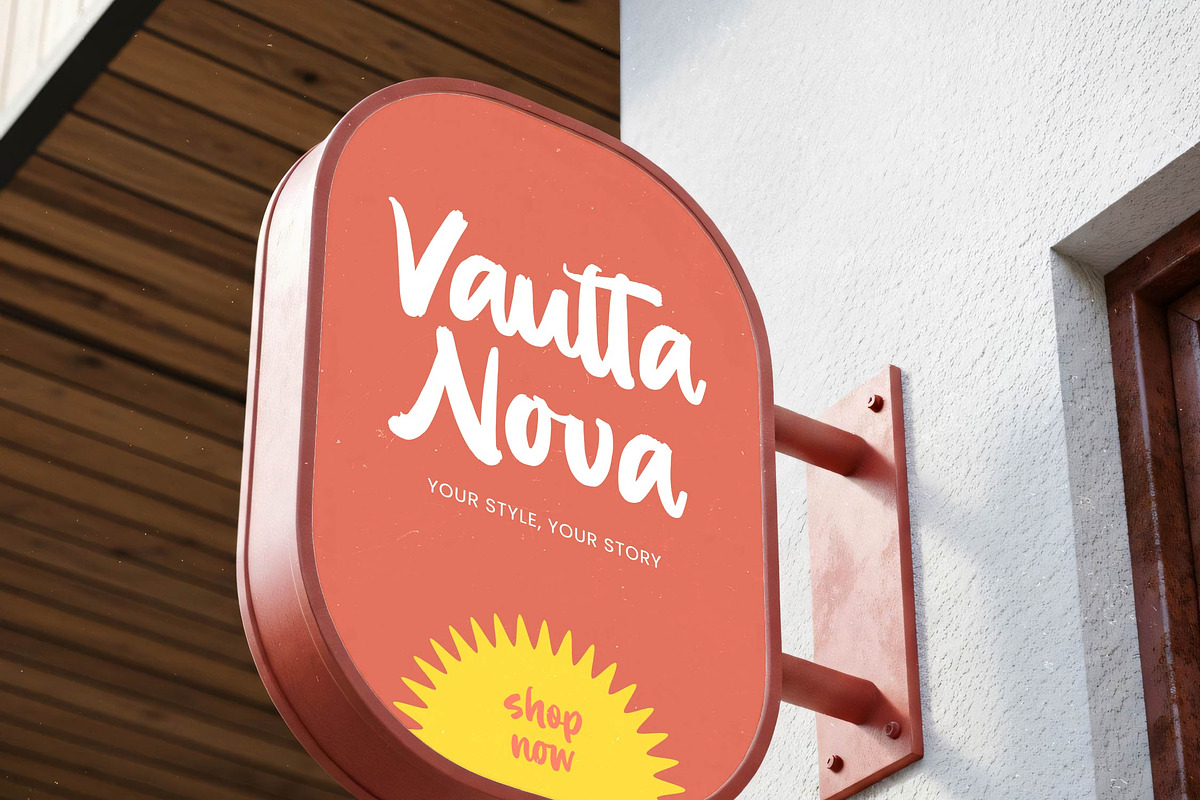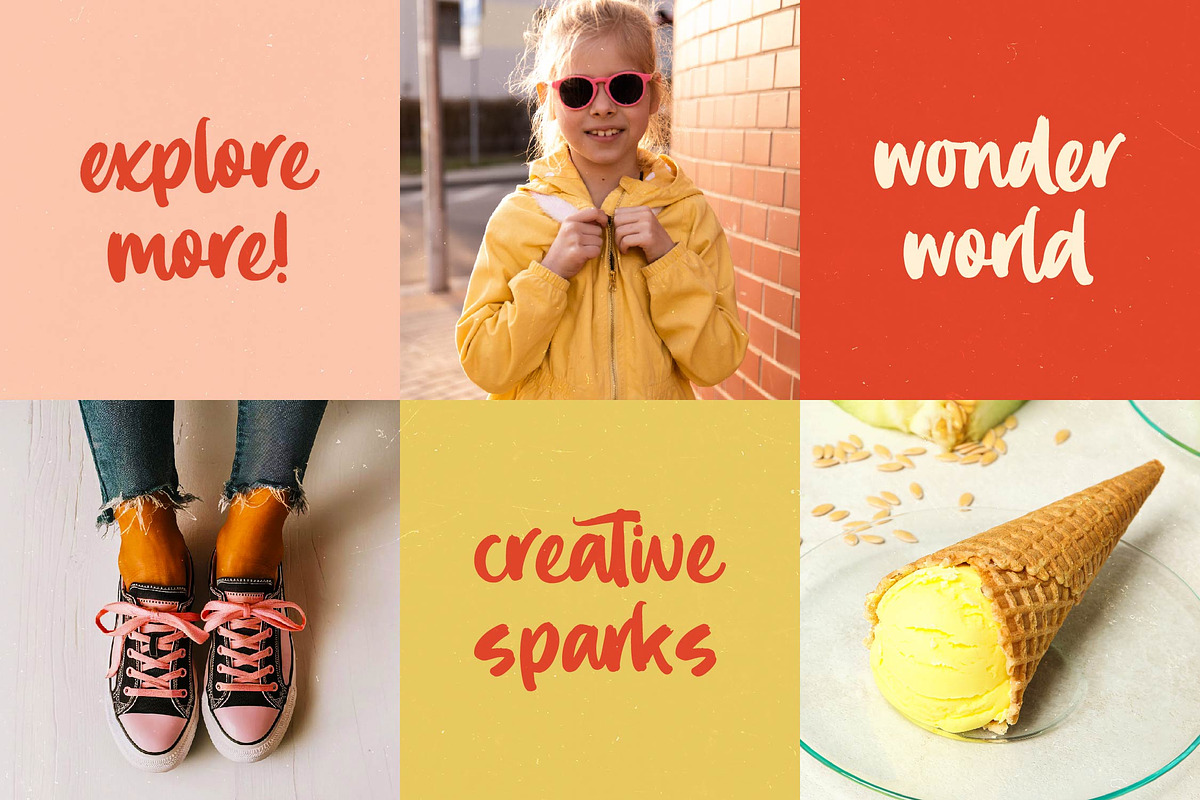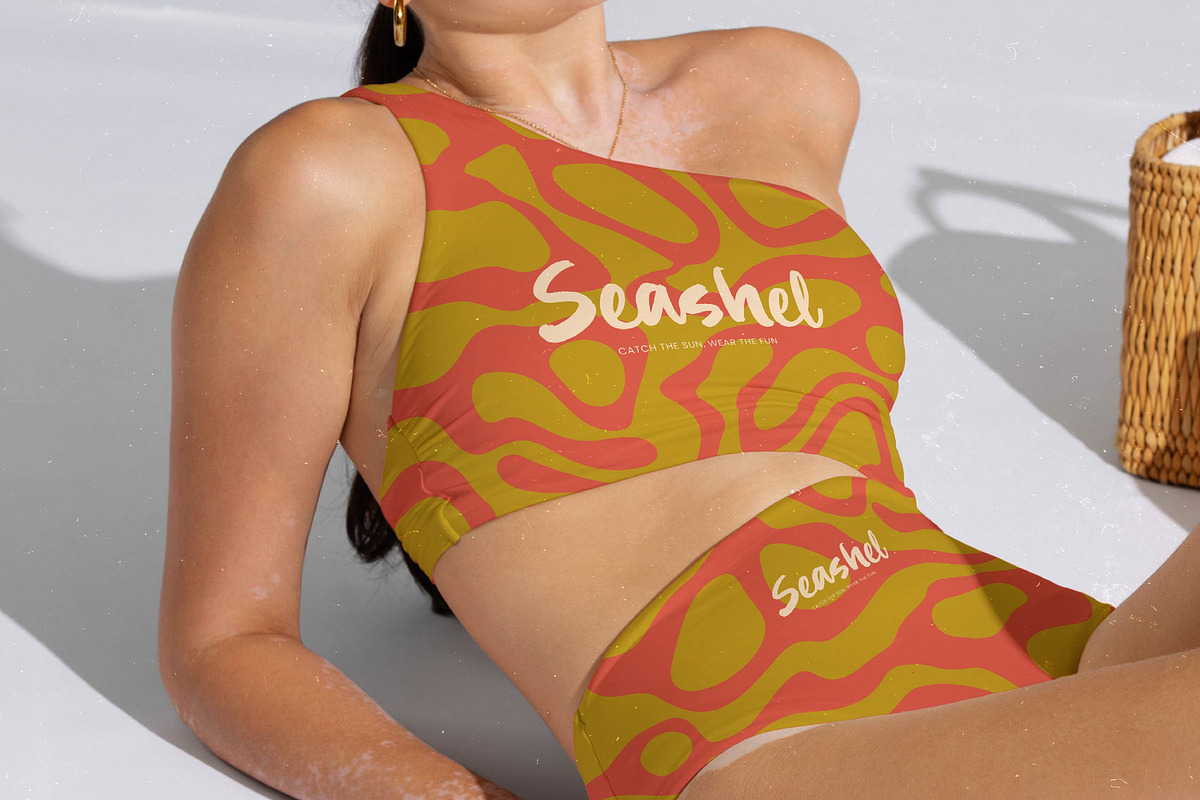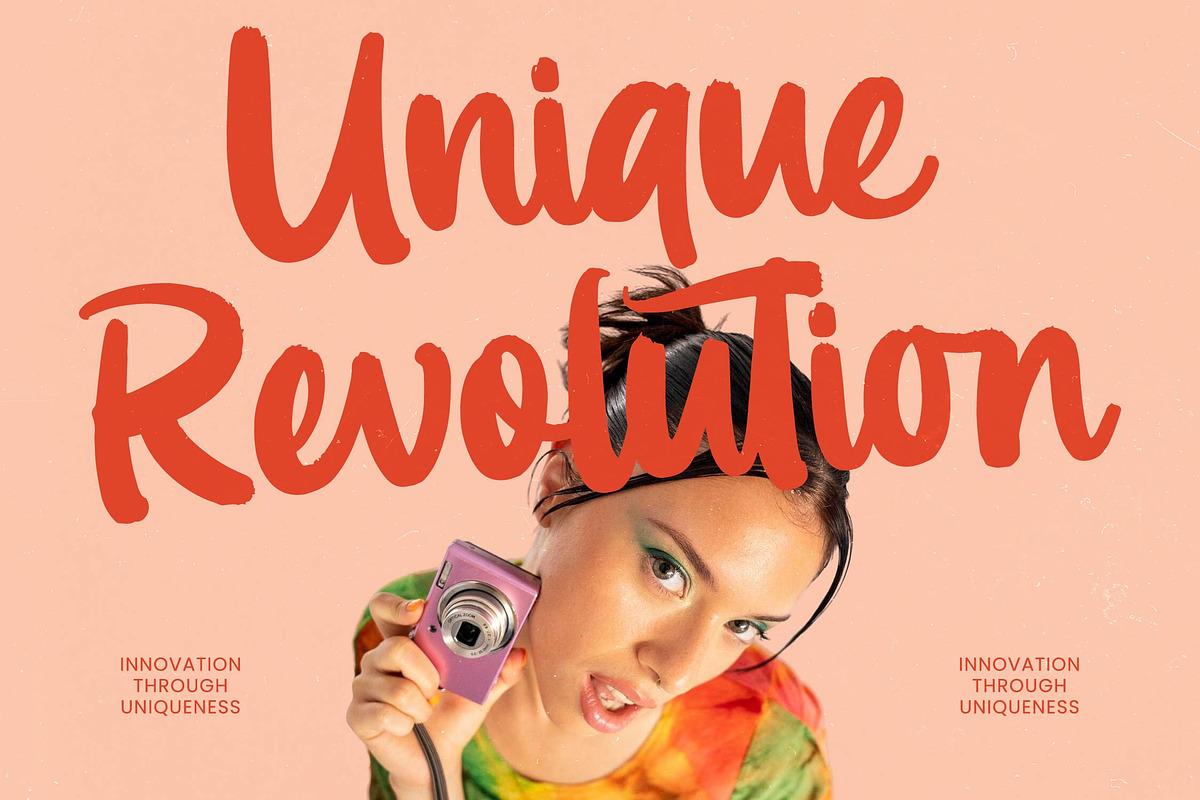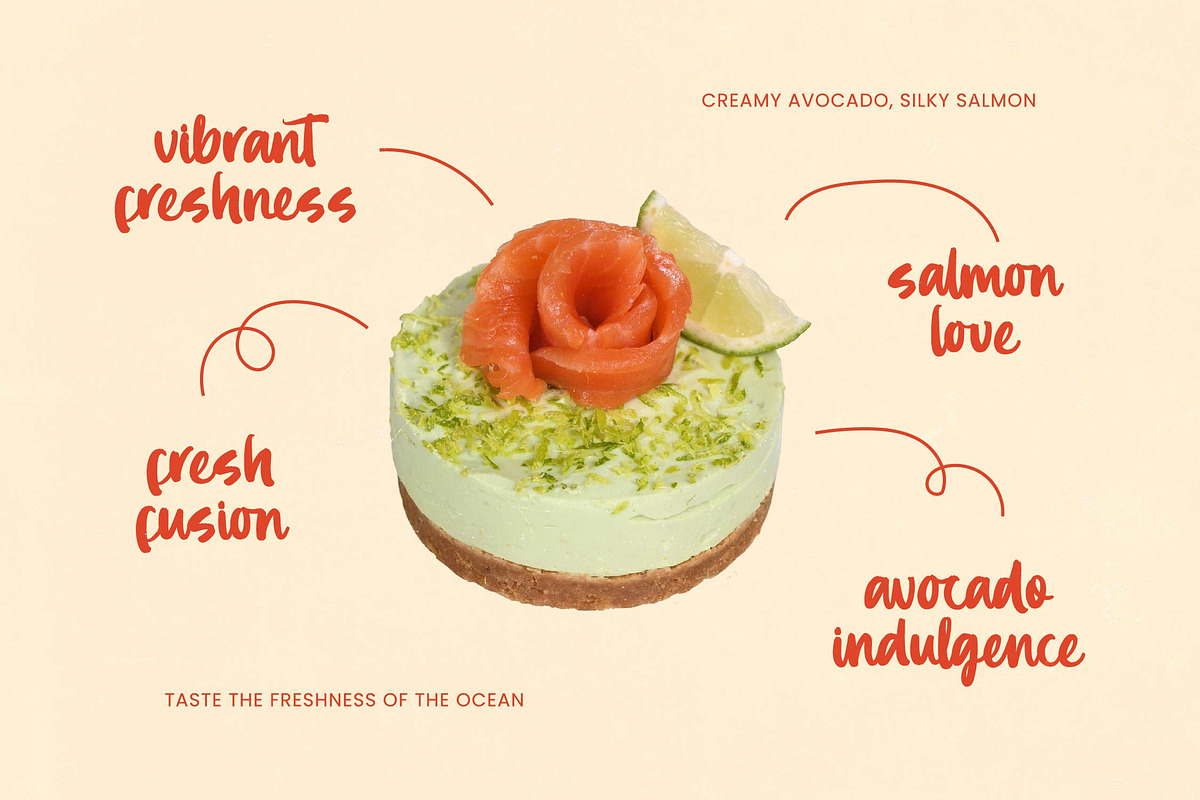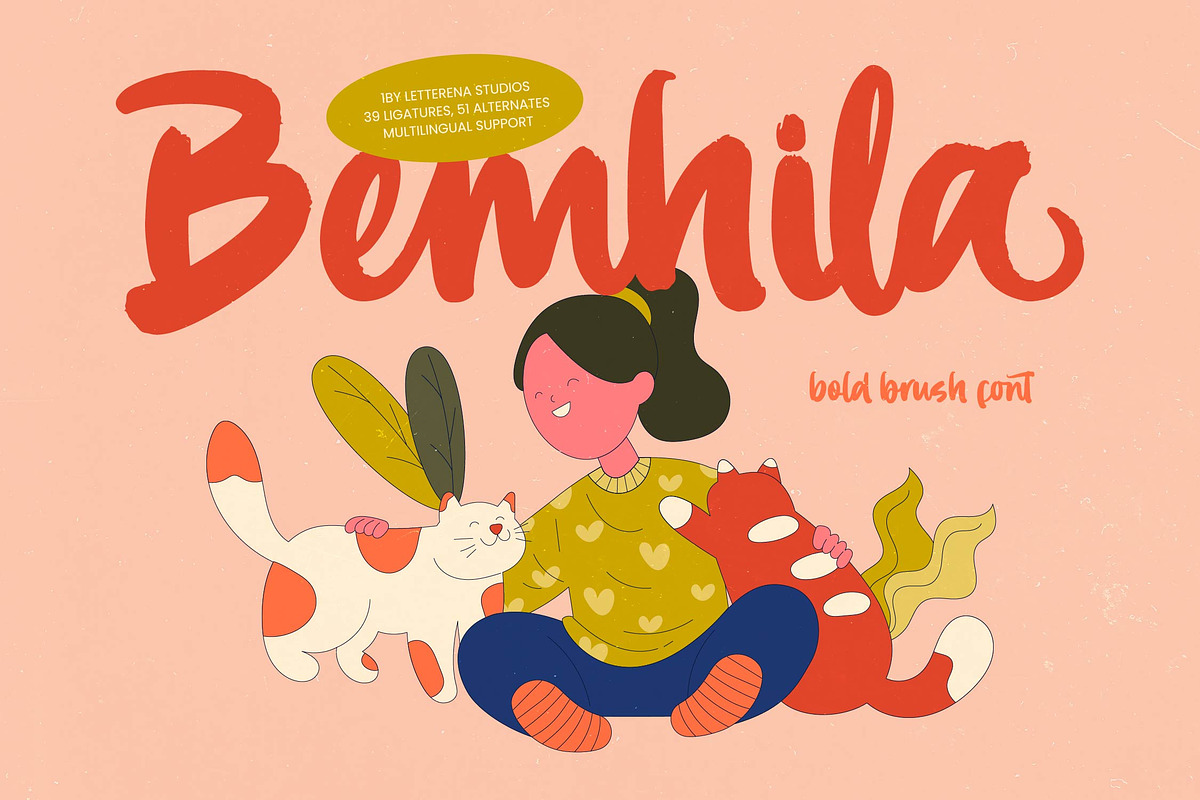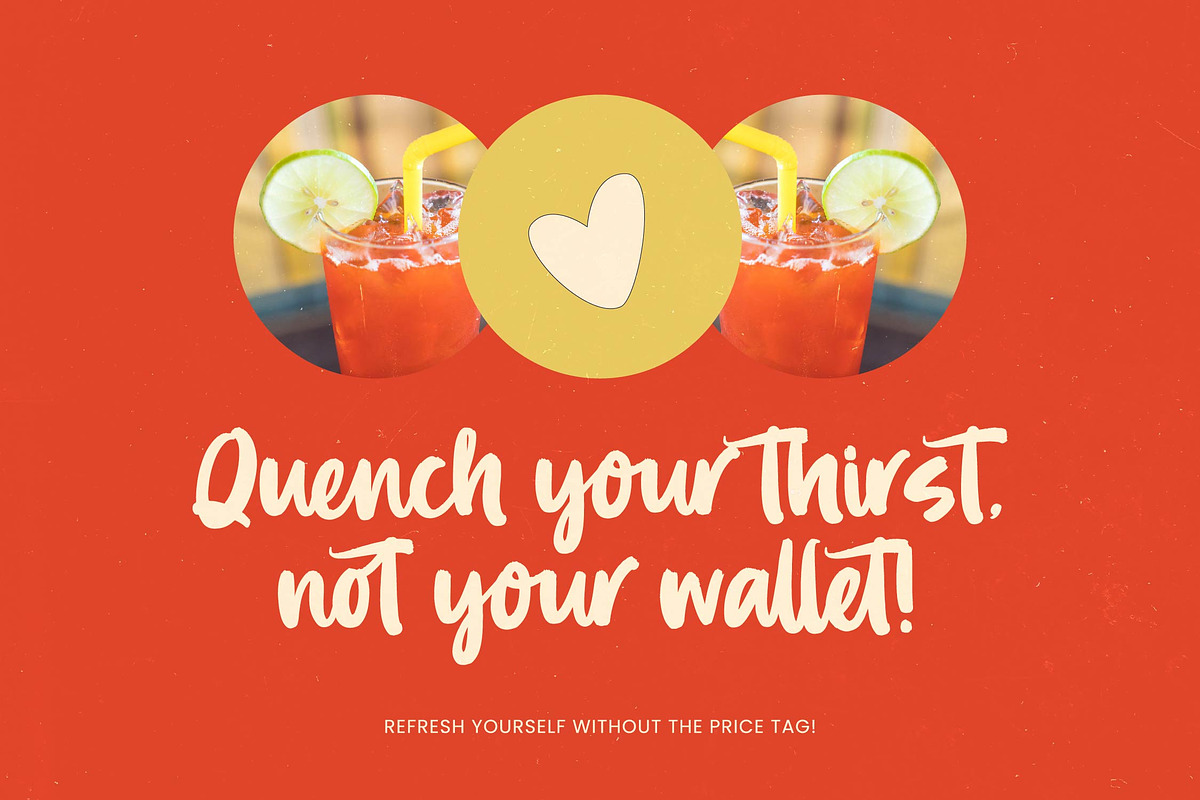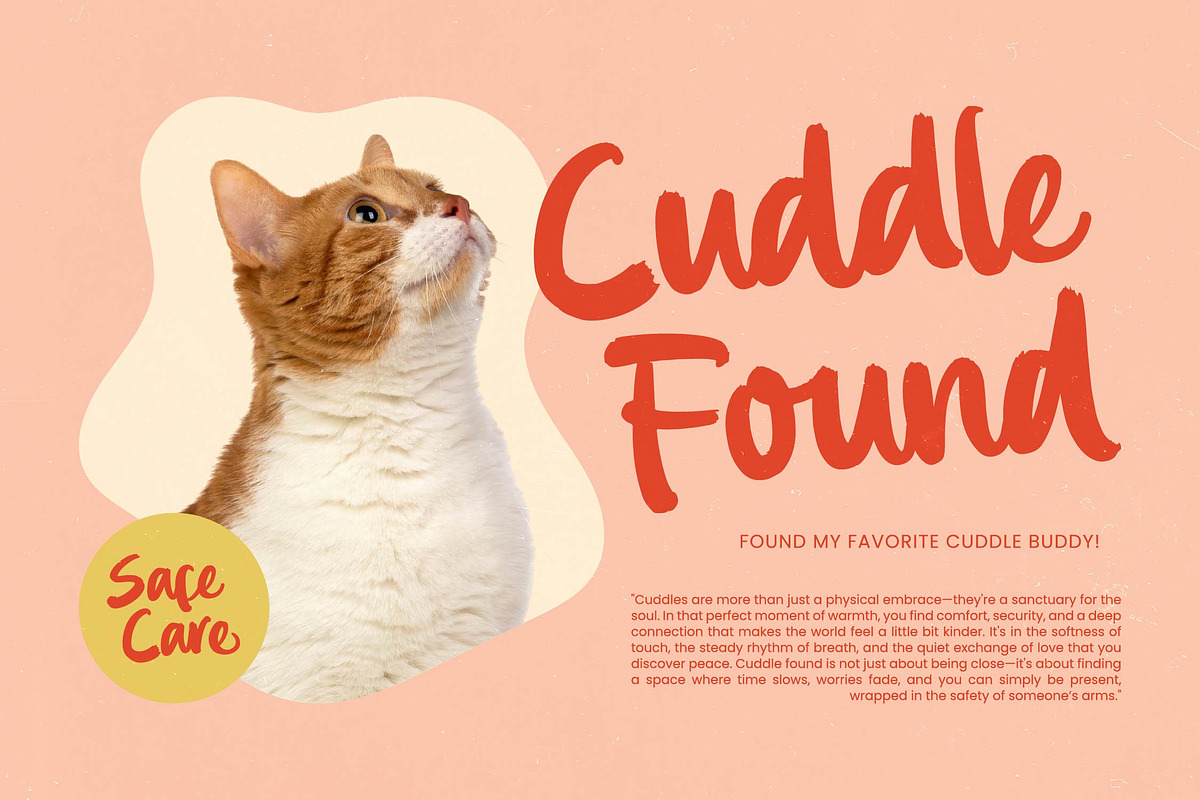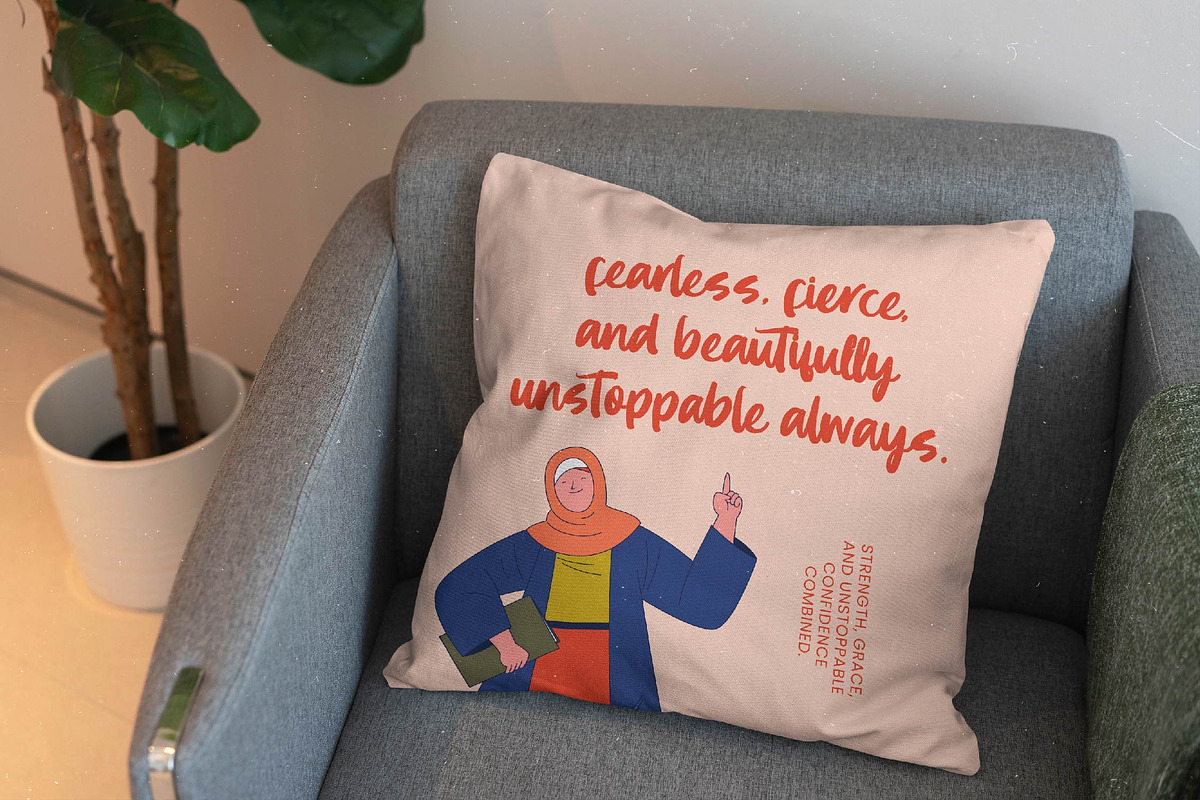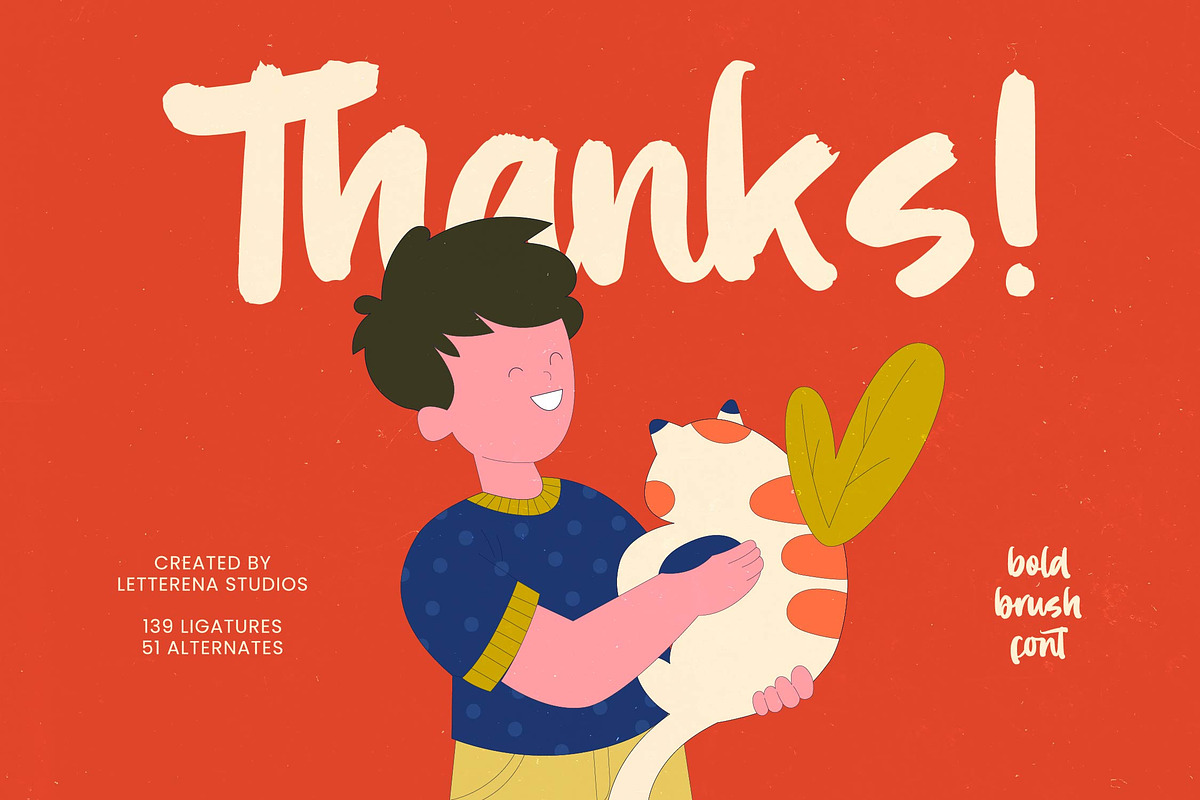
Bemhila Bold Brush Font
Bemhila - Bold Brush Font , Unleash a sense of raw energy and handmade charm with your next design project by using Bemhila - Bold Brush Font. This expressive typeface features thick, textured strokes that mimic real brushwork, providing an authentic and energetic aesthetic. The bold personality of Bemhila - Bold Brush Font ensures that your headlines command immediate attention, making it a standout choice for creators seeking a dynamic visual impact.
Versatility meets global accessibility in this expertly crafted typeface, which includes a robust set of 39 ligatures and 51 alternates to ensure a unique, custom-lettered look. With its extensive multilingual support, Bemhila - Bold Brush Font adapts seamlessly across global markets, making it incredibly versatile for international projects. Designers can rely on Bemhila - Bold Brush Font to maintain a consistent brand voice while reaching audiences across various linguistic boundaries.
Elevate your branding with a font that bridges the gap between casual warmth and professional polish. Bemhila - Bold Brush Font is the ideal application for creative packaging, lifestyle logo design, and impactful social media graphics. It is also perfect for apparel design, editorial layouts, and event posters where a friendly yet powerful tone is required. Whether used for merchandise or digital advertisements, Bemhila - Bold Brush Font delivers a premium handmade feel that resonates with modern consumers.
Invest in a high-performance typographic tool that transforms ordinary text into a compelling visual narrative. The hand-drawn flow and organic rhythm of Bemhila - Bold Brush Font provide an unmatched level of character that generic fonts simply cannot replicate. Secure Bemhila - Bold Brush Font today to ensure your visual identity stands out in a crowded marketplace with its bold presence and sophisticated artistry.
Numerals
Punctuations (OpenType Standard)
Accents (Multilingual Characters)
Ligatures and Alternative Style Stylistic Set